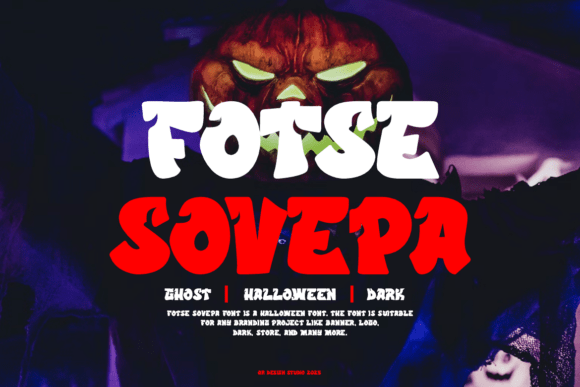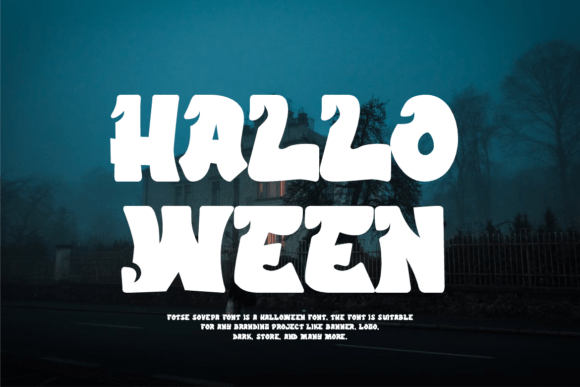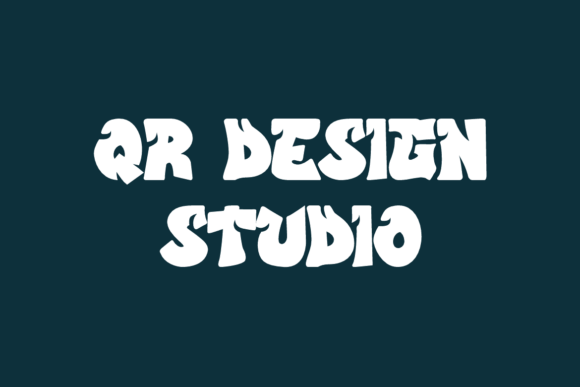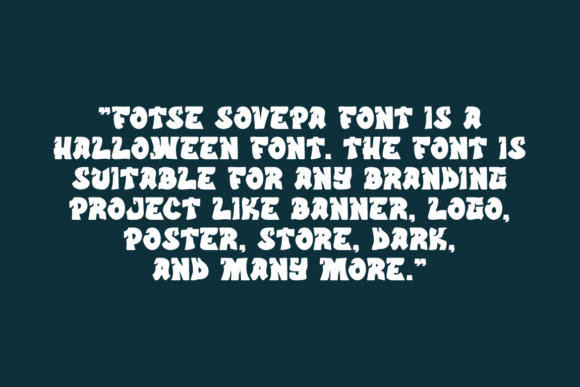
Fotse Sovepa Font
About the Fotse Sovepa Font
Add a touch of class to your work with the Fotse Sovepa Font, a truly exceptional typeface. Fotse Sovepa Font is a bold and authentic decorative font. The font is suitable for any branding project, like logos, sports, and many more. Outstanding in a wide range of contexts.
Fotse Sovepa excels in headlines, short impactful statements, and logos where its bold decorative nature commands attention. It’s ideal for branding projects conveying strength, authenticity, or a vintage feel – think sportswear, craft breweries, or high-end leather goods. Avoid using it for body text or long paragraphs; its decorative forms are not optimized for readability in extended use.
Pairing it with a clean sans-serif like Open Sans for body copy provides excellent contrast and readability. For a more sophisticated feel, consider a classic serif such as Garamond or a geometric sans-serif like Futura. These pairings complement Fotse Sovepa’s bold personality without overwhelming the design.
The font projects a confident, almost rebellious energy. Its strong forms and distinctive character are perfect for brands seeking to make a statement.
Fotse Sovepa Font Usage Examples
Fotse Sovepa Font Example